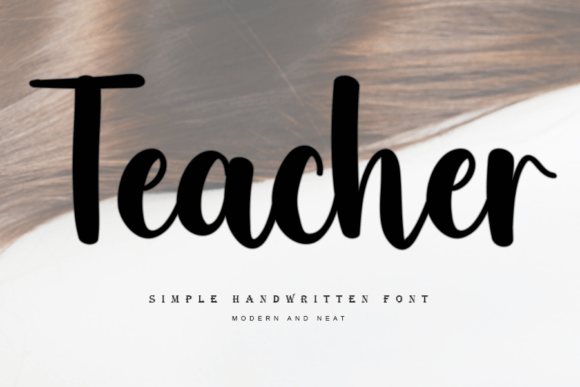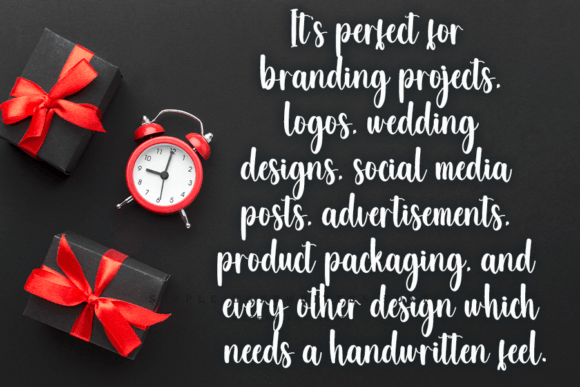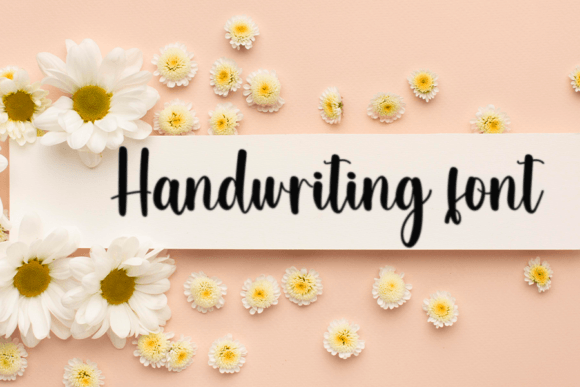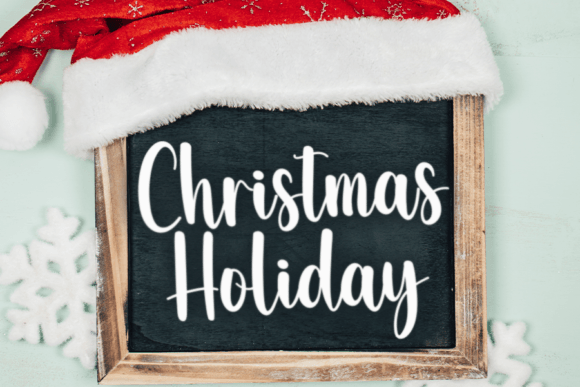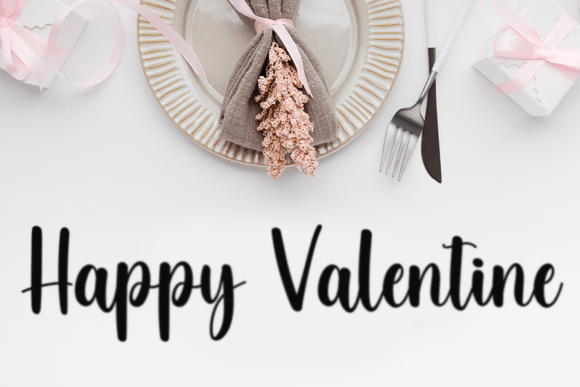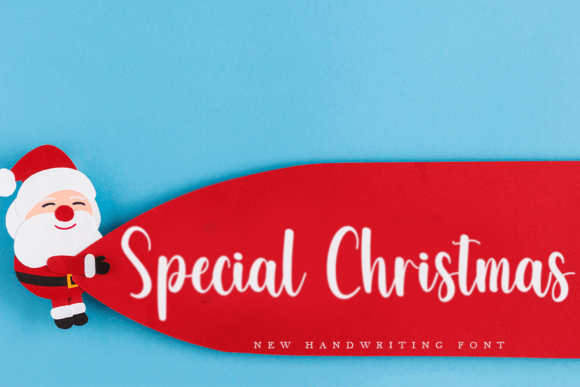
Teacher Font
A Handwritten Script with Classic Style
Teacher is a graceful handwritten font that blends timeless calligraphy with a fresh, modern touch. Every character is shaped with care, creating smooth lines and balanced spacing. This clean look helps your text stand out with elegance and style.
The font feels friendly and professional at the same time. You can use it to make your designs look polished and inviting.
Versatile for Many Design Projects
Teacher is a great choice for many creative uses. It works well for wedding invitations, greeting cards, and personal notes. If you need a font for logos, product packaging, or social media graphics, Teacher adds a warm and personal feel.
This font includes uppercase and lowercase letters, numbers, and punctuation. You also get a set of stylish ligatures that help your words flow naturally. These options make it easy to create a professional look in any project.
Clear, Balanced, and Easy to Read
Even though Teacher has a handwritten style, it stays clear and legible. The spacing between letters is consistent. This makes your text easy to read at any size, whether you are working on print materials or digital designs.
Many designers like pairing Teacher with a simple sans-serif font. This mix creates a modern and balanced layout. Use Teacher for titles and the sans-serif for body text to guide the reader’s eye and keep everything clean.
Tips for Stunning Designs
To highlight Teacher’s elegant lines, use soft colors and minimal backgrounds. Light settings help the delicate curves stand out. If you want to add more personality, try combining the font with watercolor textures or subtle patterns.
When you work on branding, think about the tone you want to share. Teacher is perfect for brands that value beauty, authenticity, and warmth. It also works well for personal projects that need a friendly, timeless touch.
An Essential Font for Your Collection
Teacher is more than just a beautiful script font. It is a flexible design tool that turns simple text into captivating visuals. Its smooth shapes and refined style help you share ideas with confidence.
Adding Teacher to your font library means you always have a reliable option for elegant projects. From wedding stationery to business logos, this font adapts to any creative challenge.